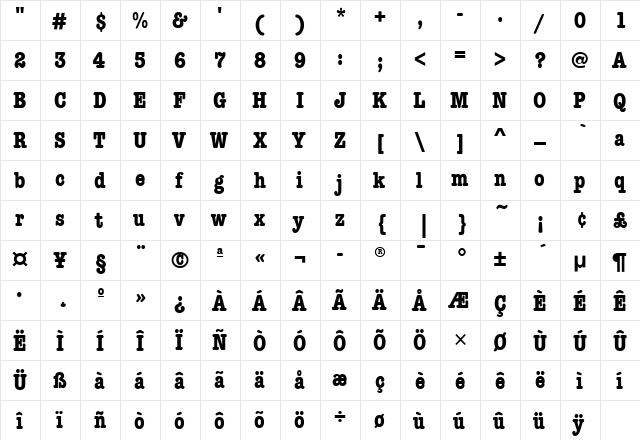
AmTypewriterCdITC Bold
Design Context for AmTypewriterCdITC Typeface
AmTypewriterCdITC uses fixed-width spacing throughout, giving it the structured, systematic character associated with coding environments and technical documentation. The heavy weight commands attention and anchors typographic hierarchies.